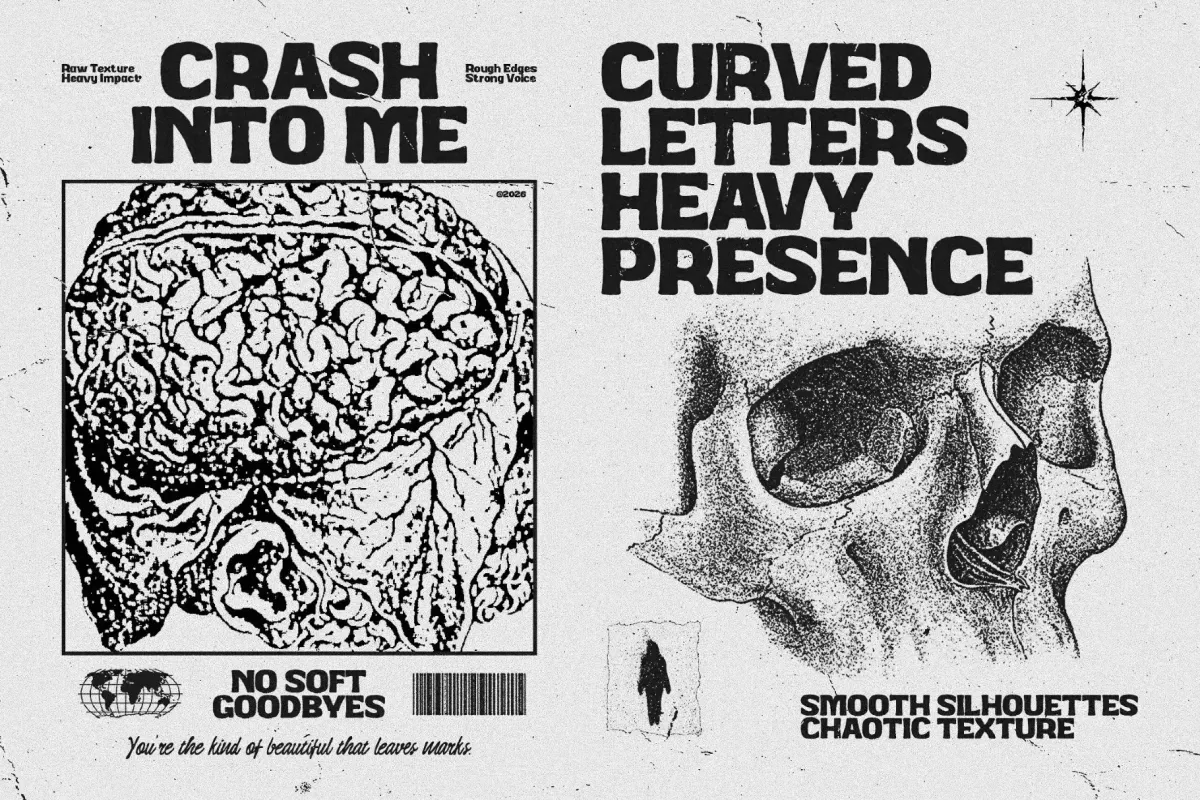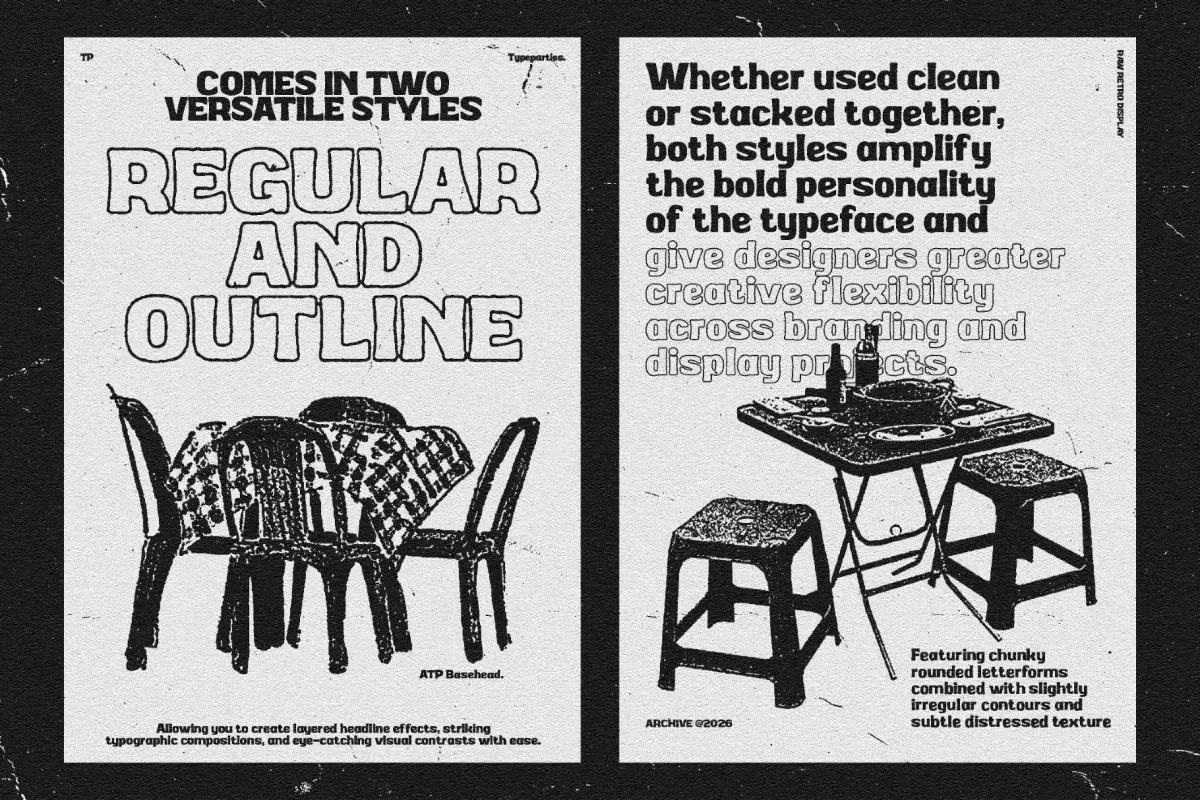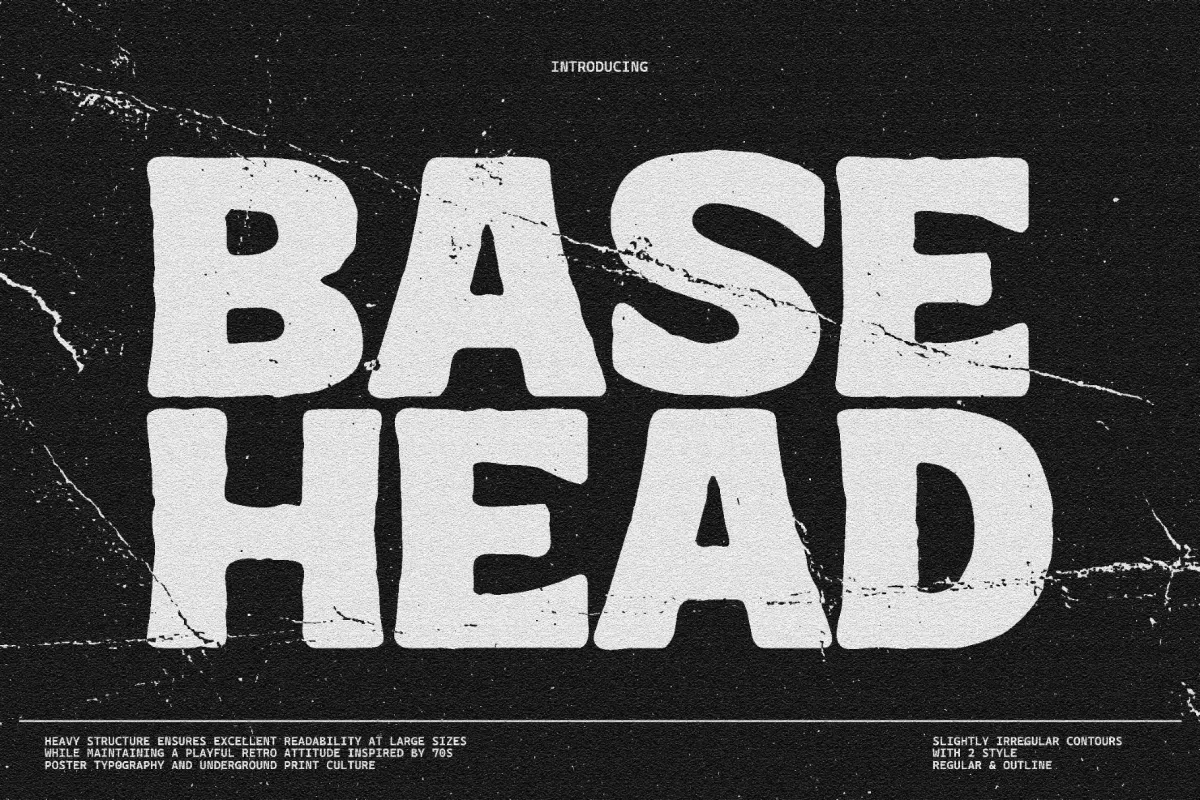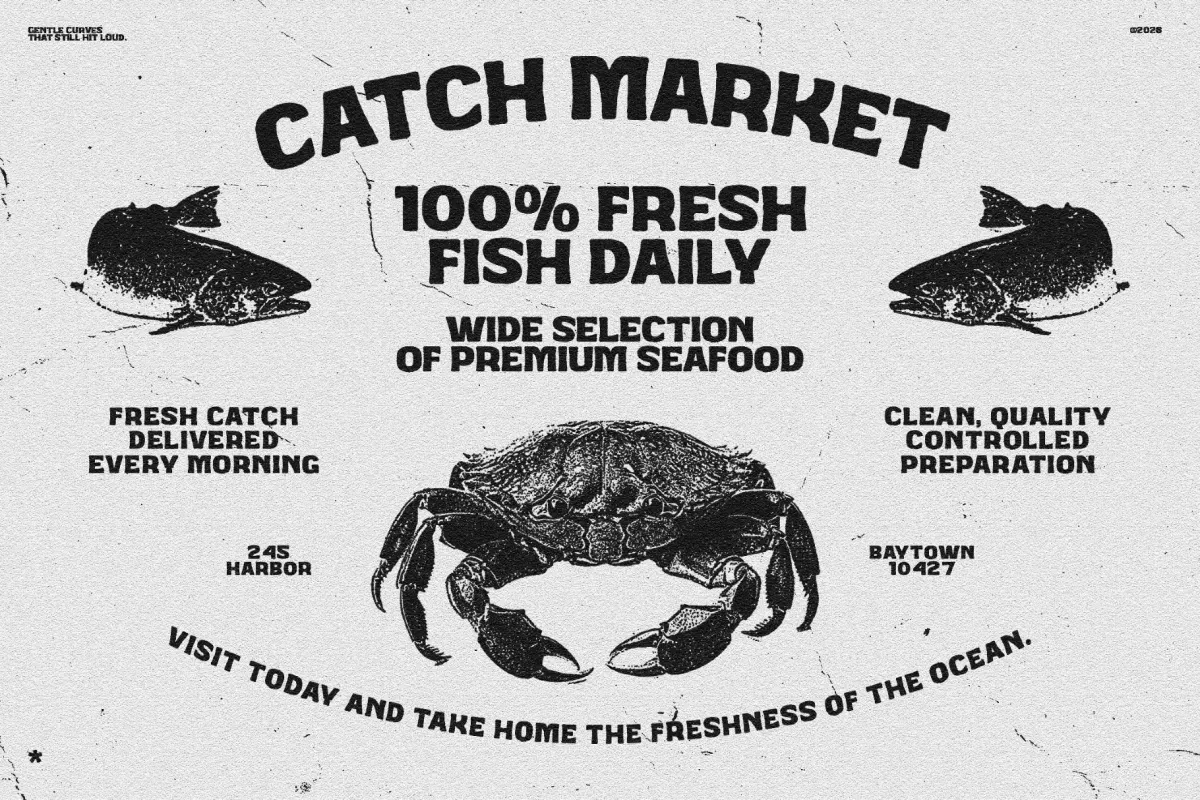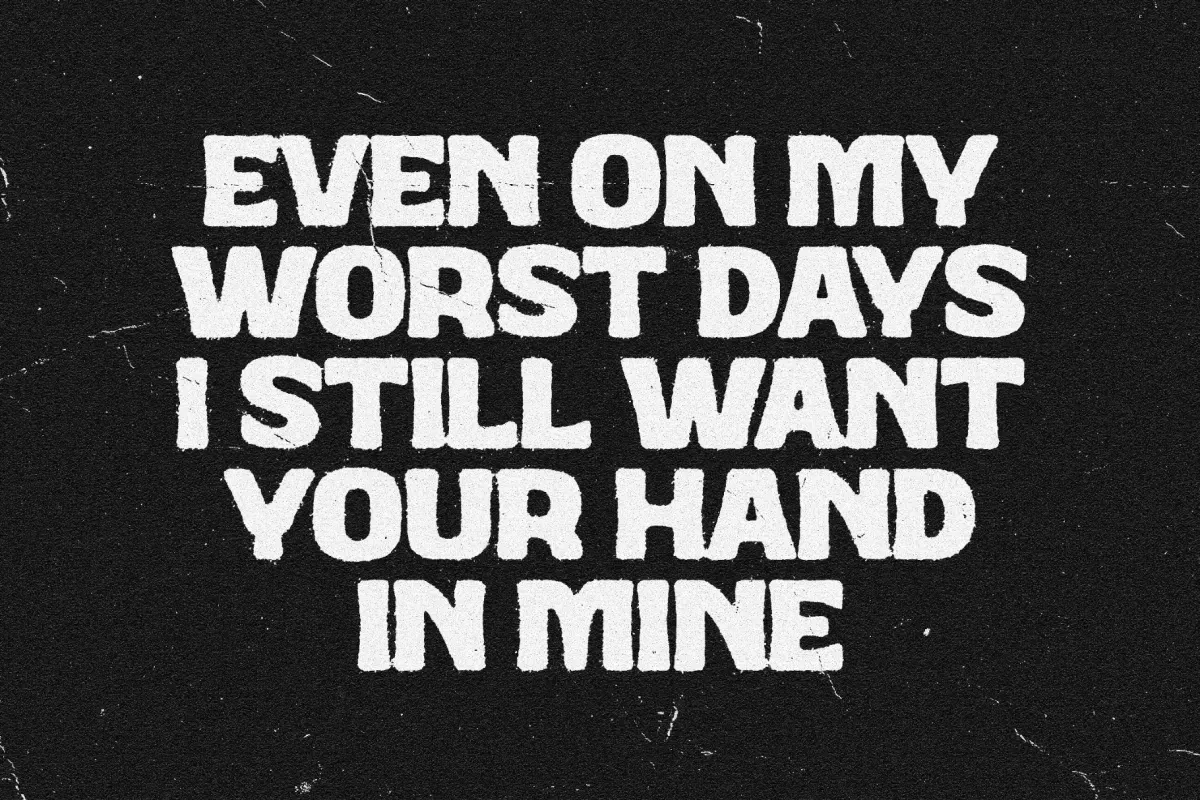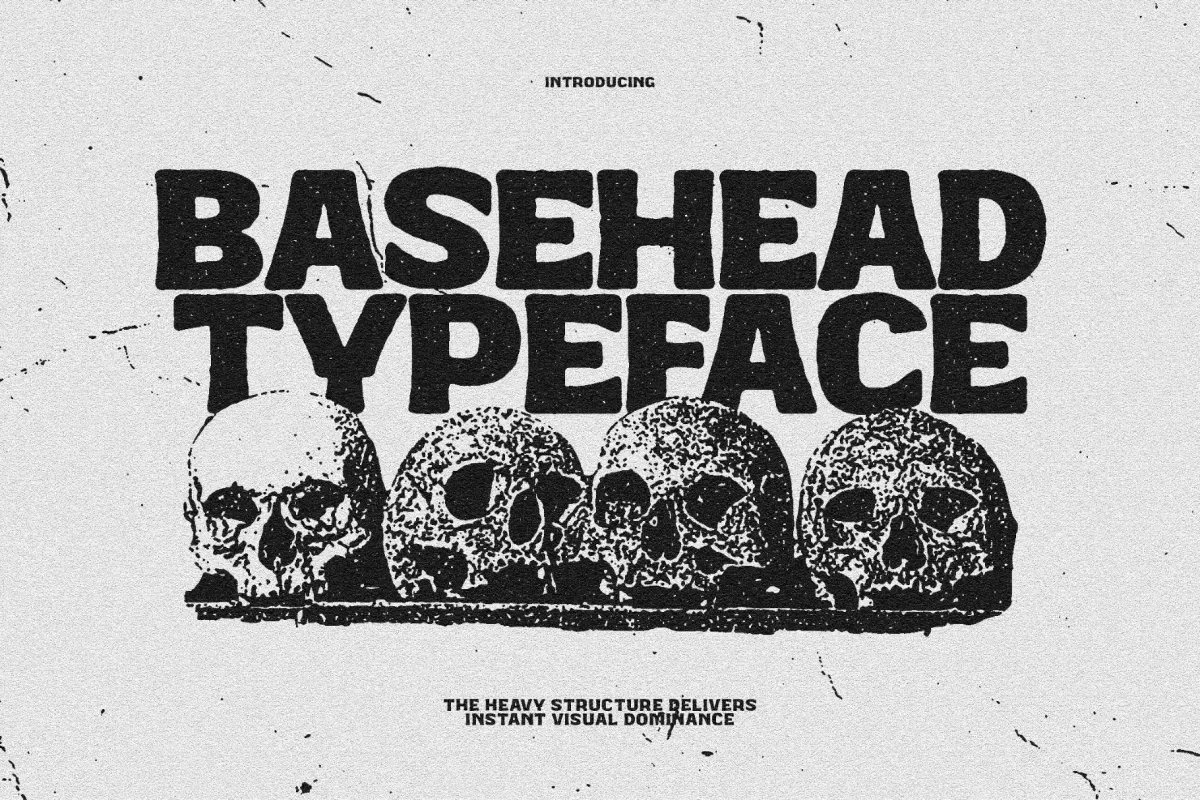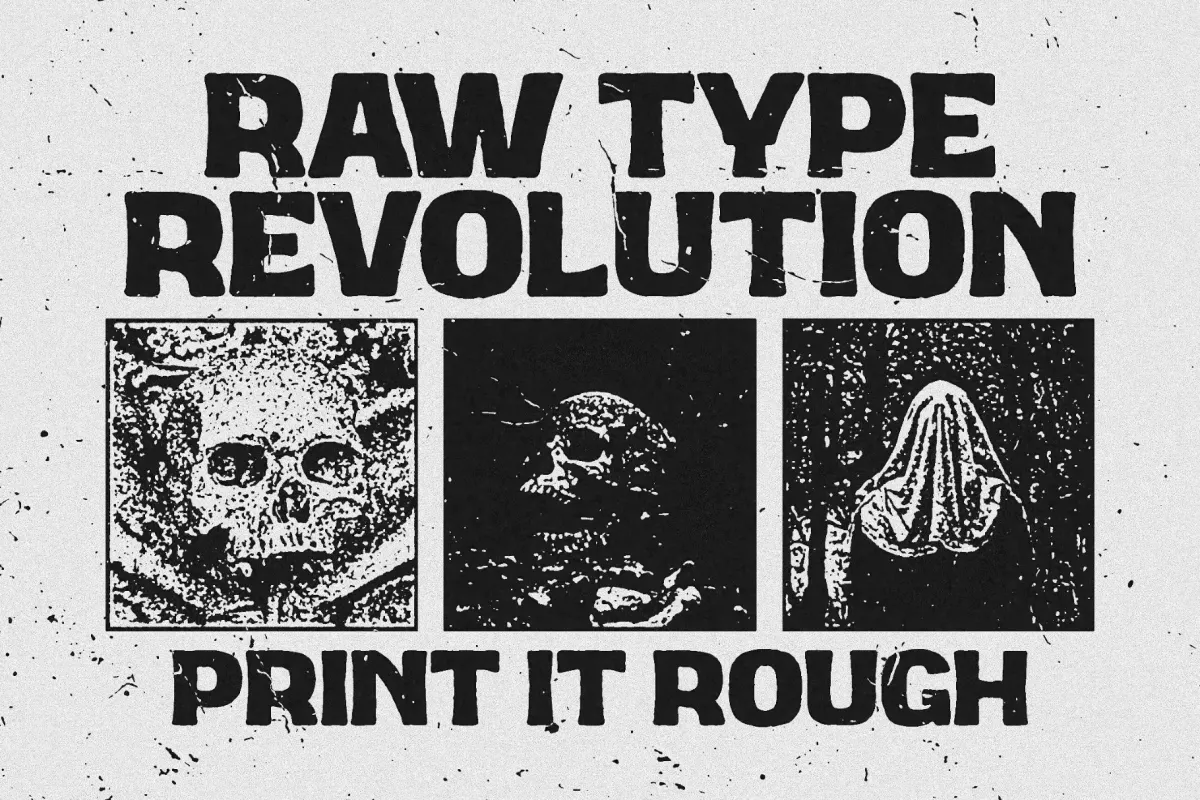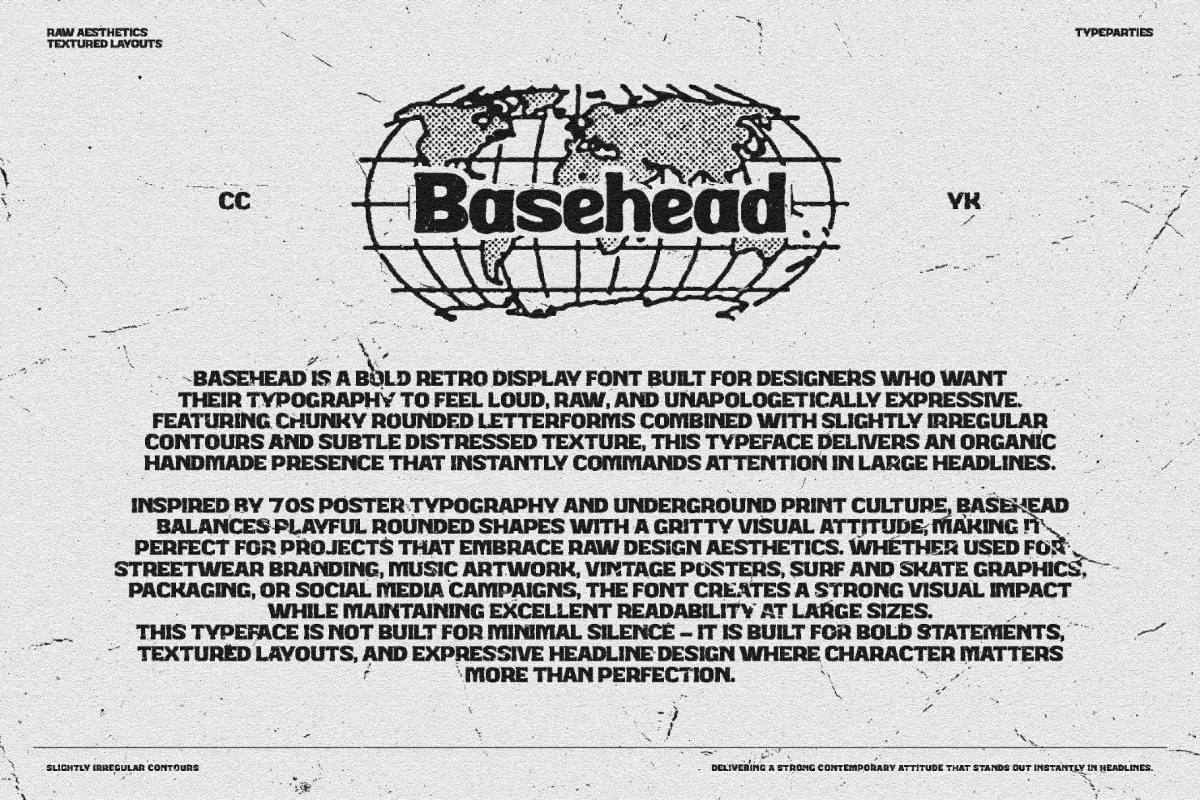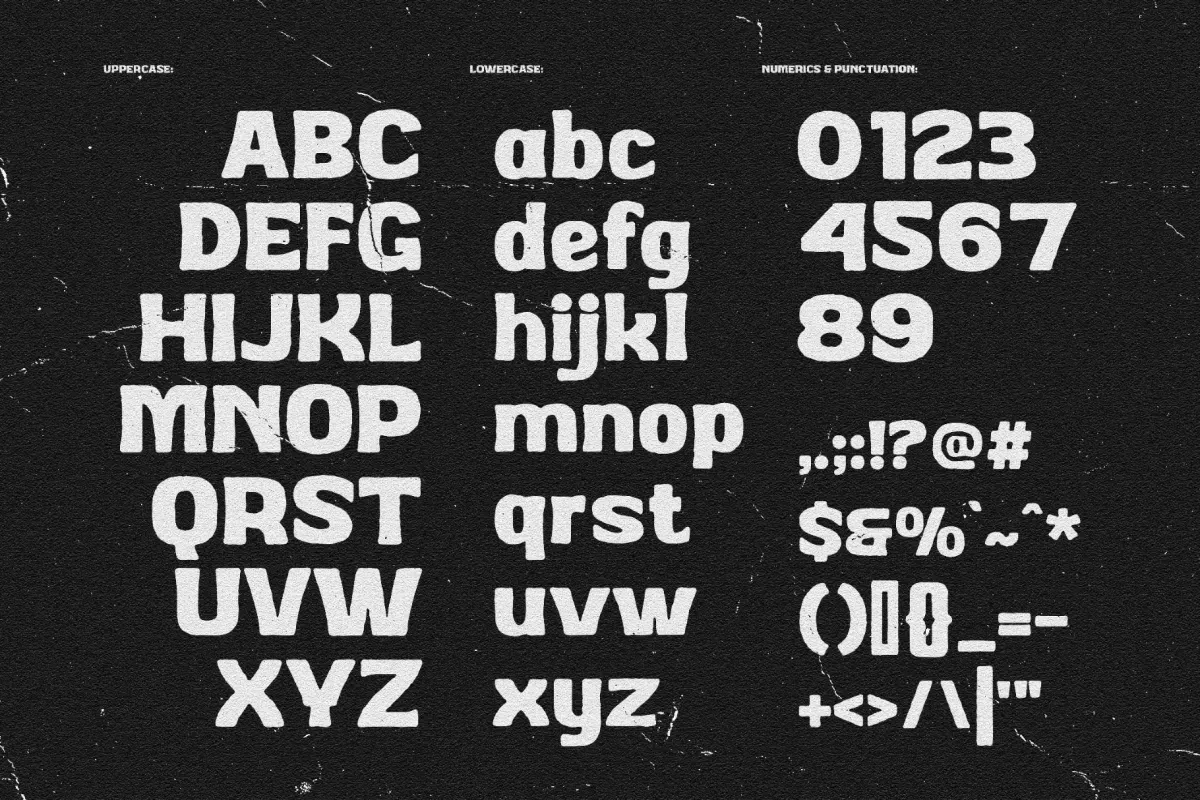
BaseHead – Bold Retro Display Font
Basehead builds every letter from thick, condensed strokes packed tight and upright. Rough ink texture breaks up the edges of each character, cracking and speckling the way old screen-printed merch wears down after a few washes. The heavy structure holds up at both poster scale and small print, staying legible even under all that grain.
Uses: band merch and album art, skate and streetwear graphics, gig posters, sticker designs, and headline.